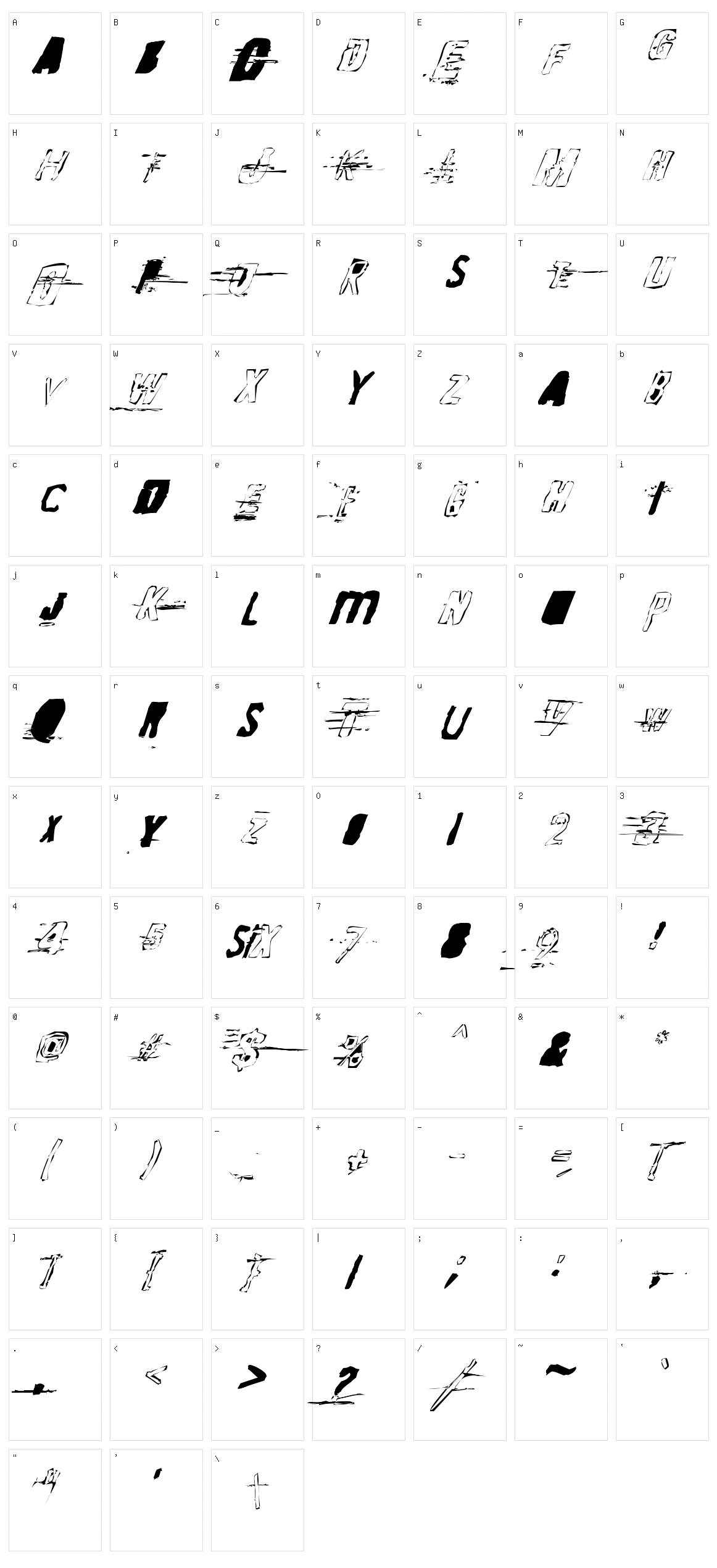
The free font Random Change In Mood is carefully designed by Cherie Giffard, showcasing a thoughtful balance of creativity and usability and falls under the Destroy font style. When you download the ZIP file, it contains only 112.37 KB of font files, making it lightweight and quick to download. Please review the license details below to understand permitted usage and distribution rights. If license information is not available, we recommend using this font for personal projects only or contacting the author directly for commercial usage permissions.